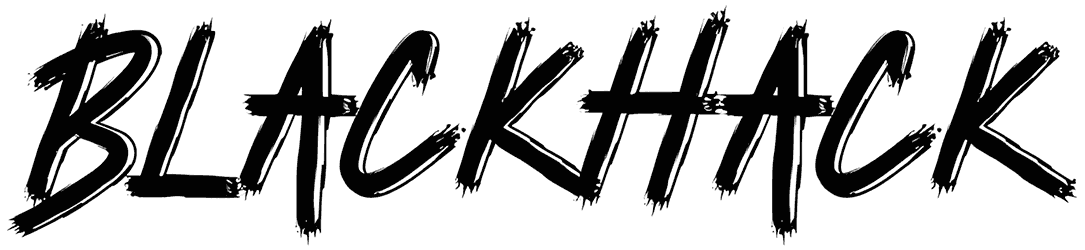
Blackhack Font
Today’s font is a unique and creative 80s brush font with each character designed with handwritten chalk effects and bold elements. This font has sharp corners, and it will give your readers a bit of a rebel vibe!
You can use this for action movie titles, party flyers and banners, product introduction posters, and gaming events. All the characters in Blackhack font are capitalized, and the package does not include numerals.